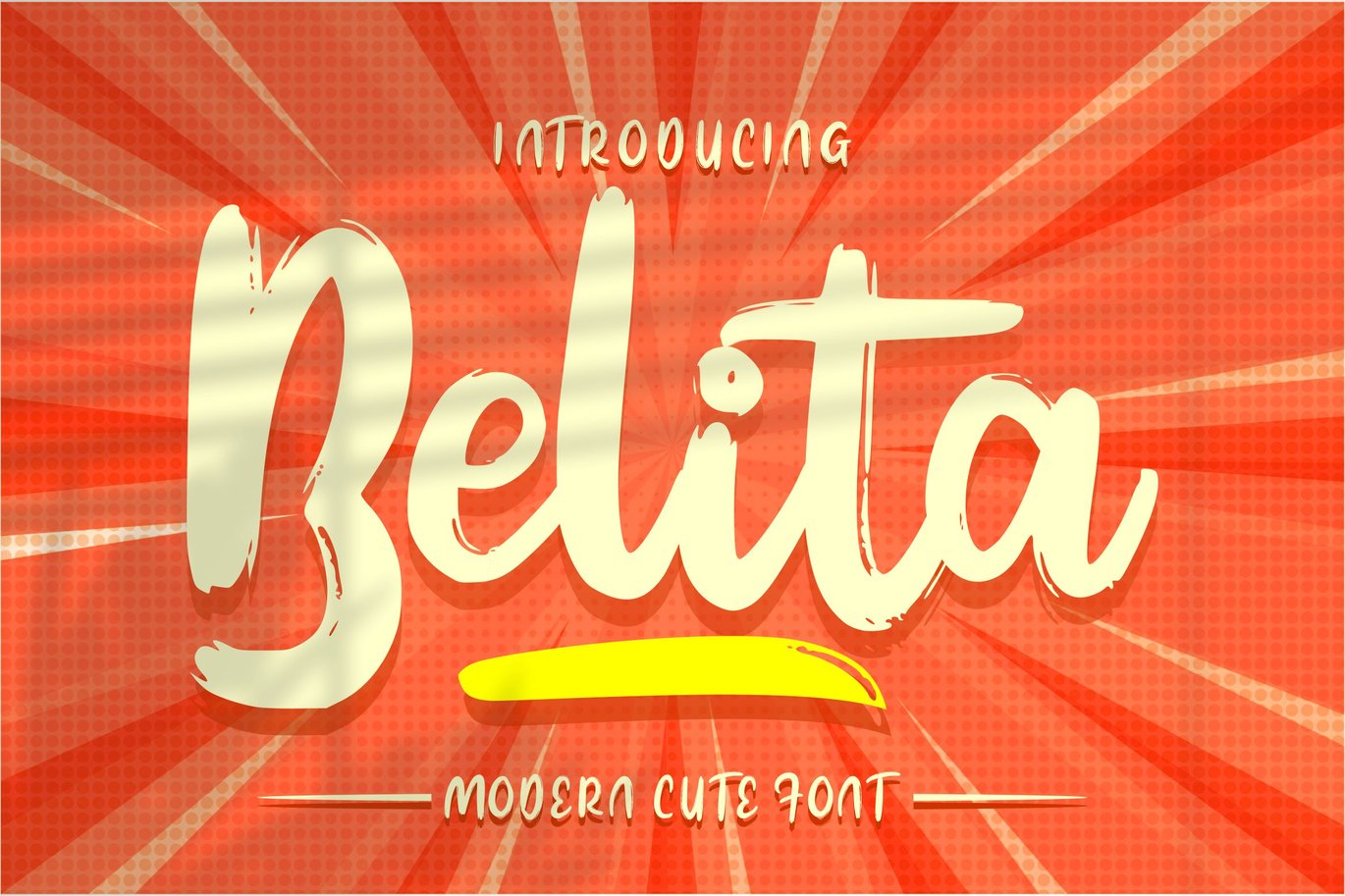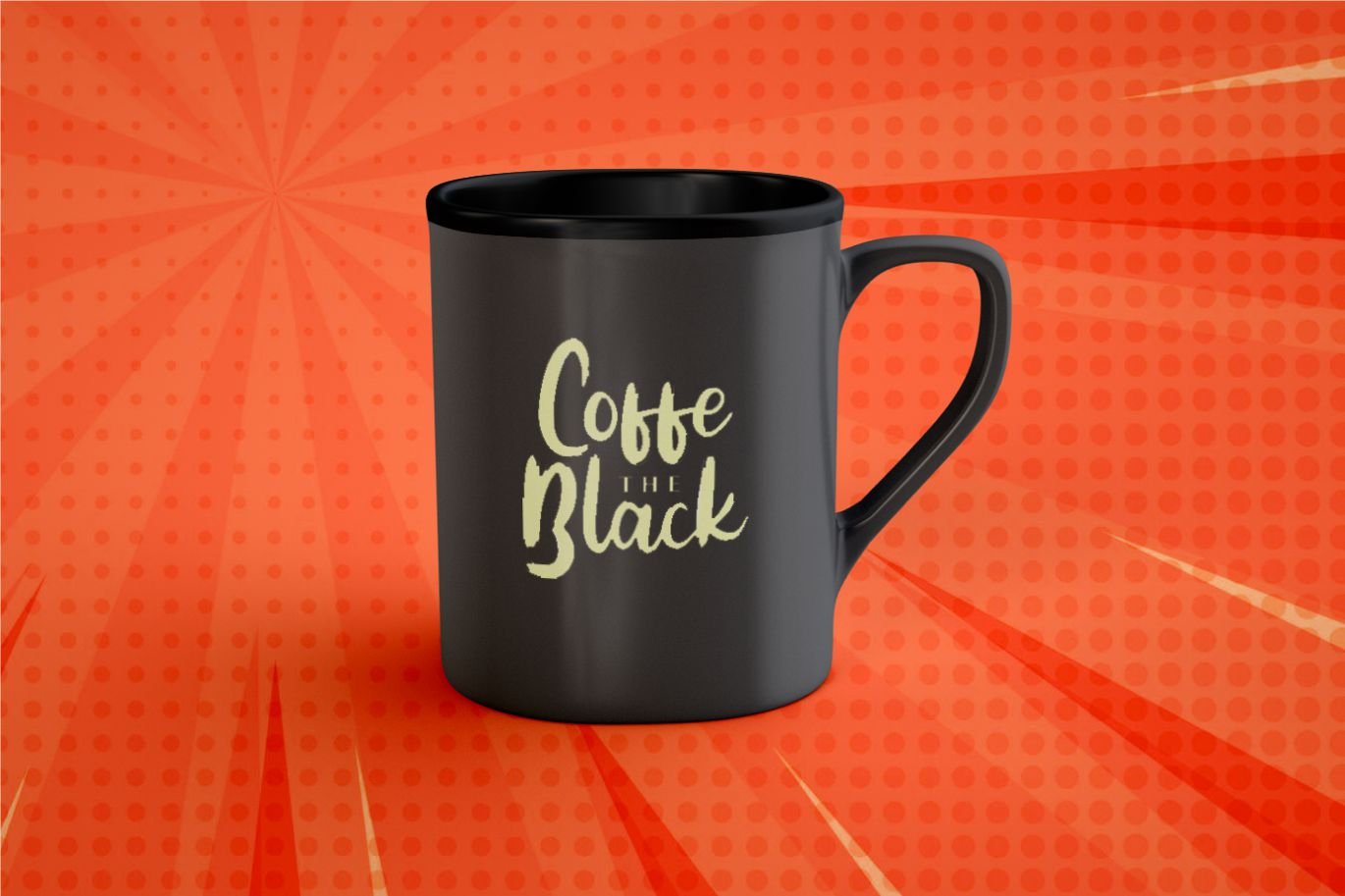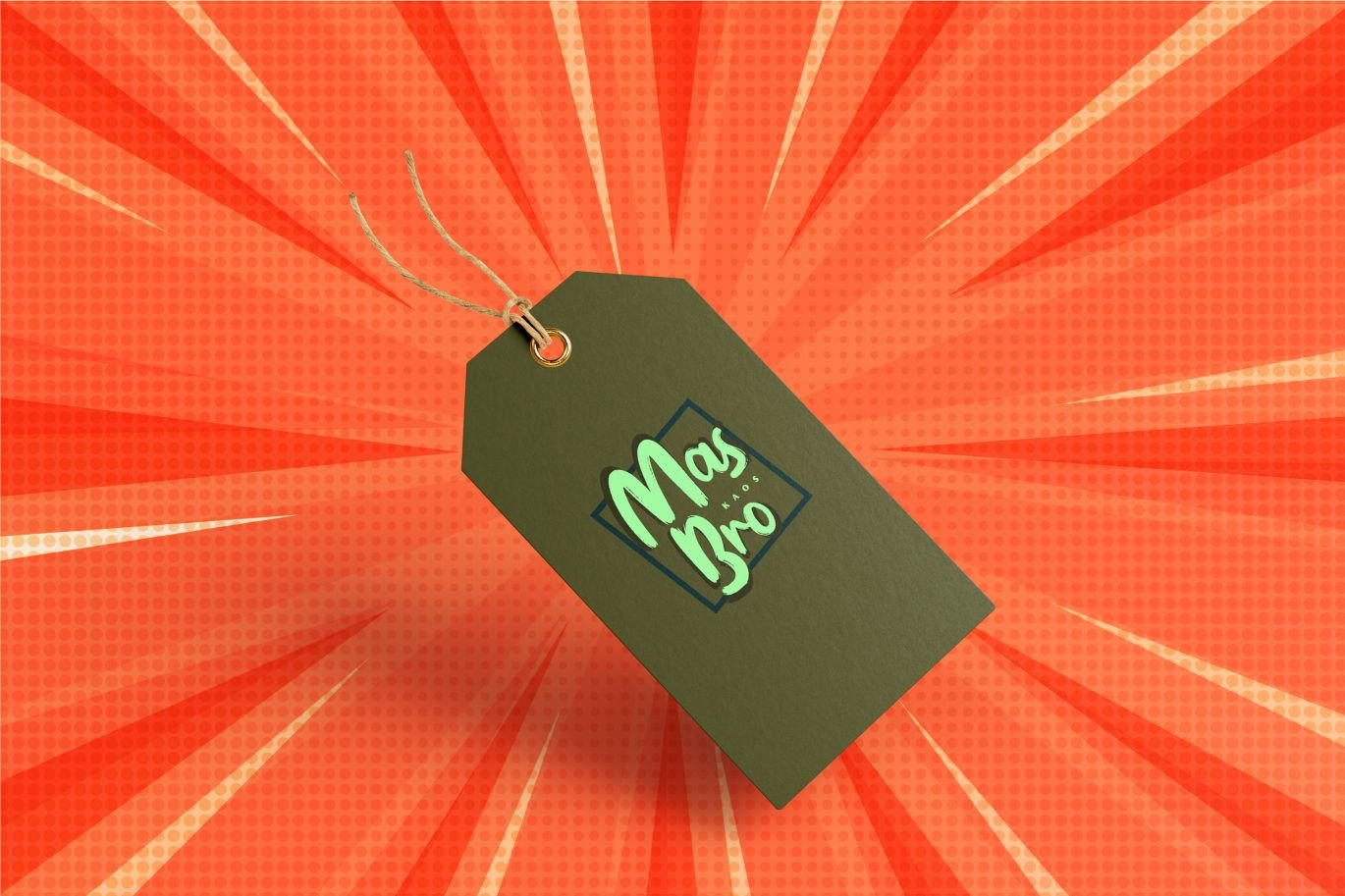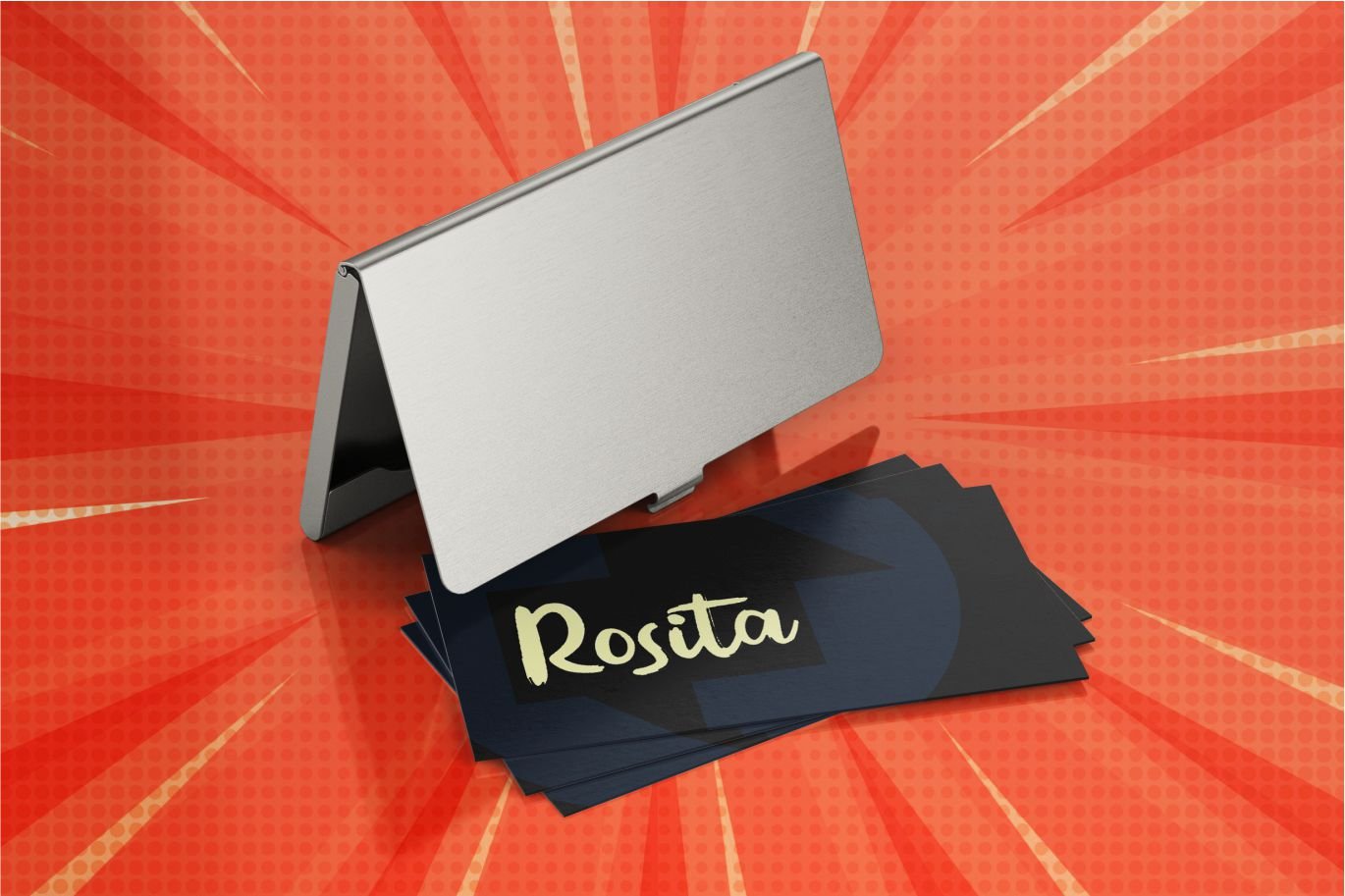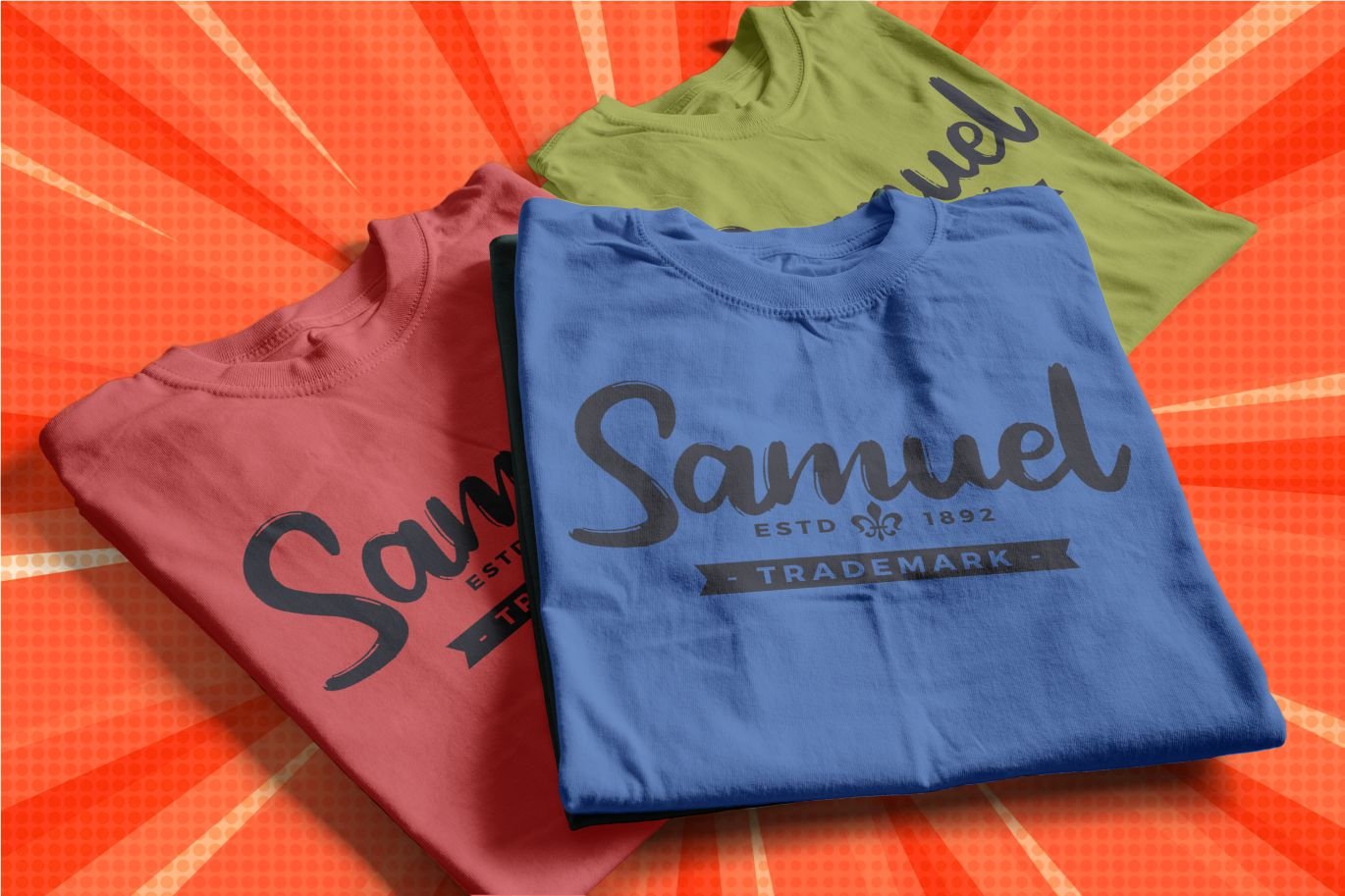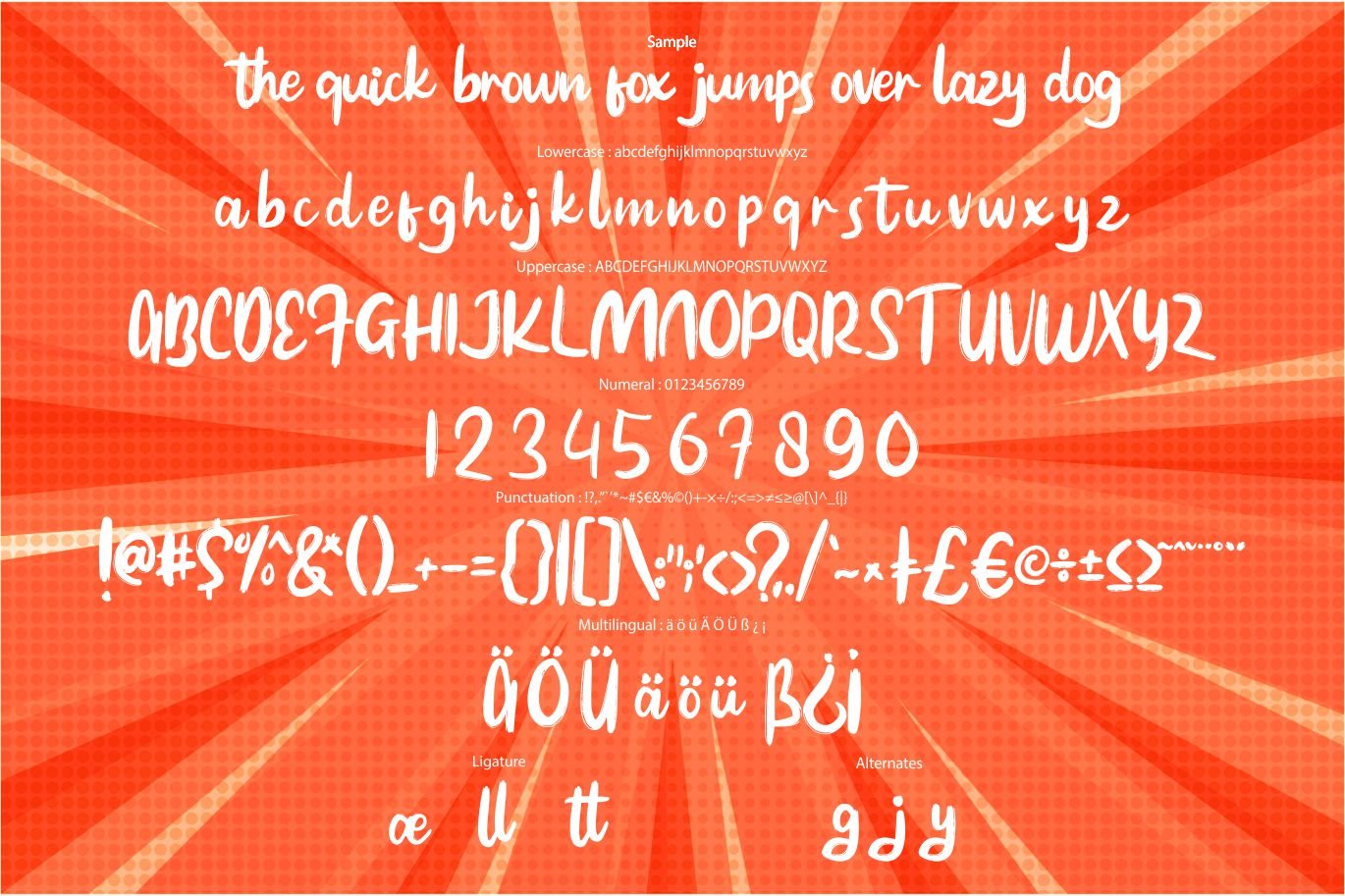
Belita | Modern Cute Font
Belita | Modern Cute Font with a calligraphy style, So beautiful on invitation like greeting cards, branding materials, business cards, quotes, posters, and more!